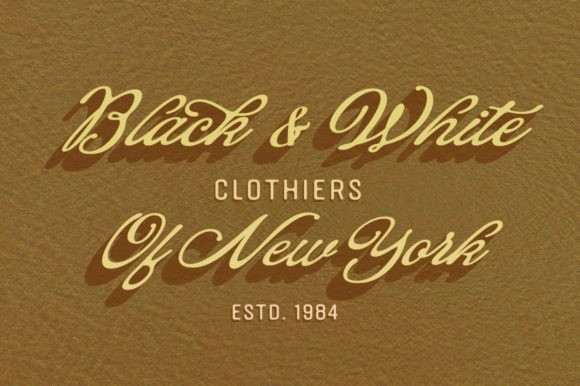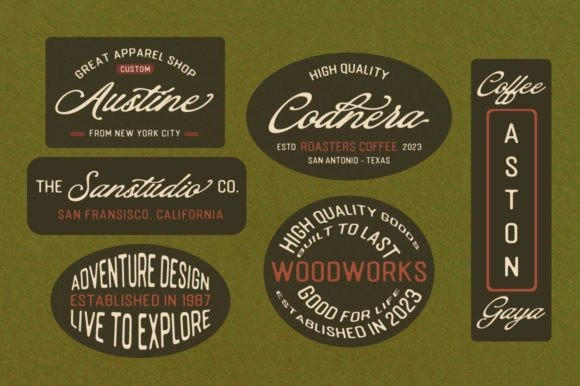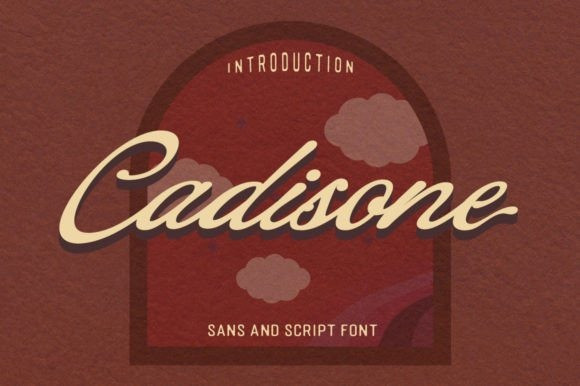
Cadisone Font
Cadisone Font is a vintage script font that boasts a charming and nostalgic design, making it perfect for creating a warm, inviting feel. With its catchy and elegant style, it adds a touch of sophistication to any headline, logo, or advertisement.